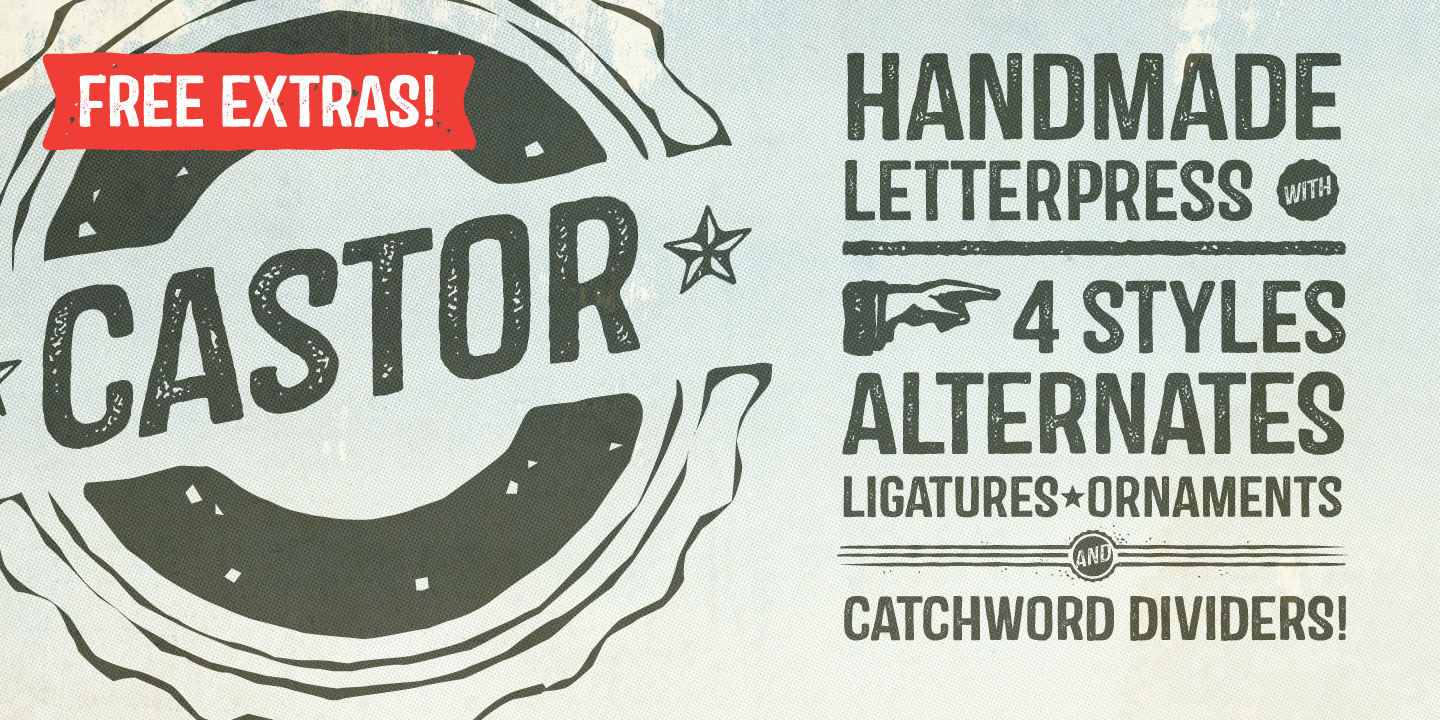
Castor Font is a fantastic choice for a variety of design applications including vintage posters, branding projects, packaging design, logo creation, T-shirt typography, and editorial layouts. Its bold and retro-inspired aesthetic makes it an attention-grabbing font that stands out across both digital and print mediums.
What makes Castor Font Free Download truly exciting is its raw, industrial charm. With a blend of rustic and geometric influences, this font gives your projects a unique, handcrafted personality that feels both classic and contemporary. It's perfect for designers who want to evoke a nostalgic vibe while keeping things stylish and bold.
The Castor Font family includes multiple weights and variations such as Regular, Bold, Inline, and Rough, allowing for great flexibility in your creative work. Each variation is meticulously crafted to maintain consistency while offering a different flavor of texture and weight.